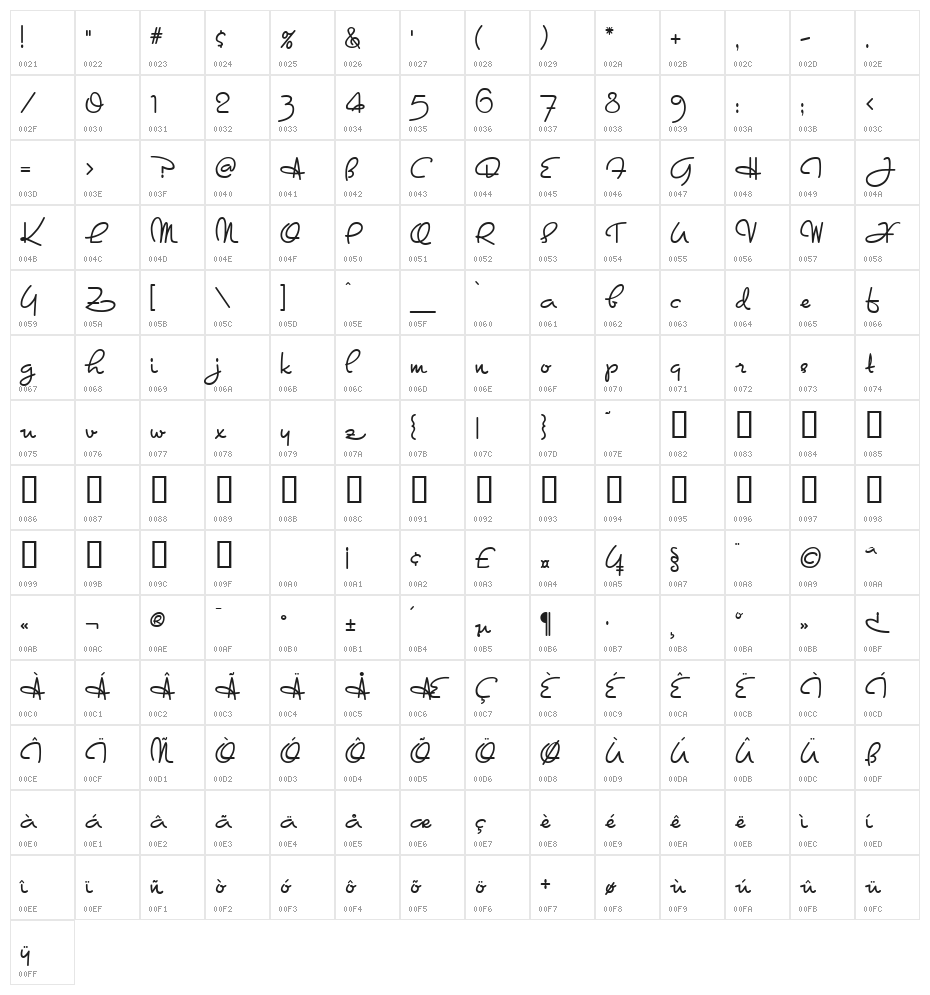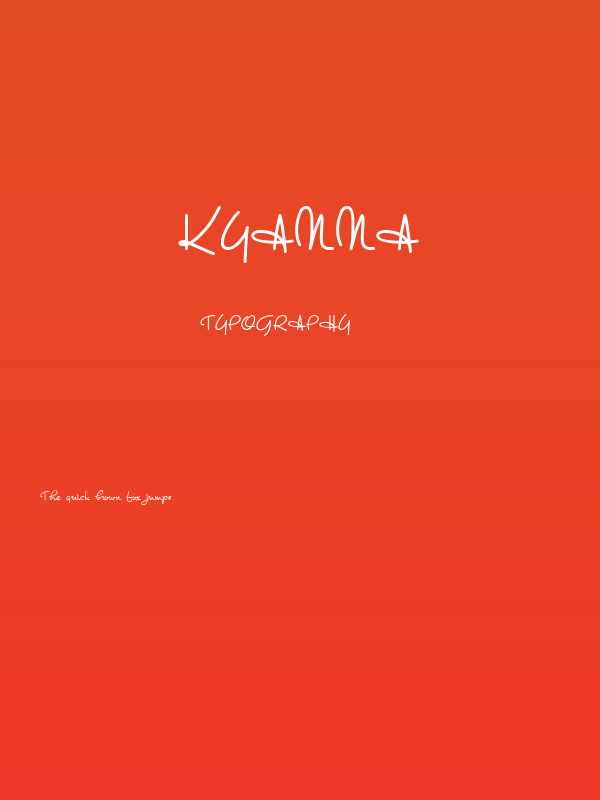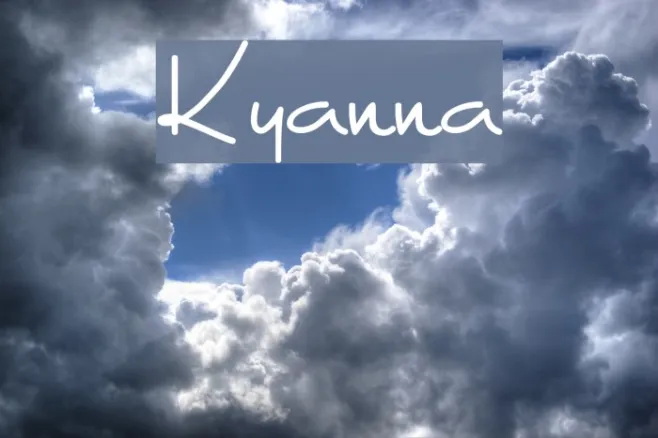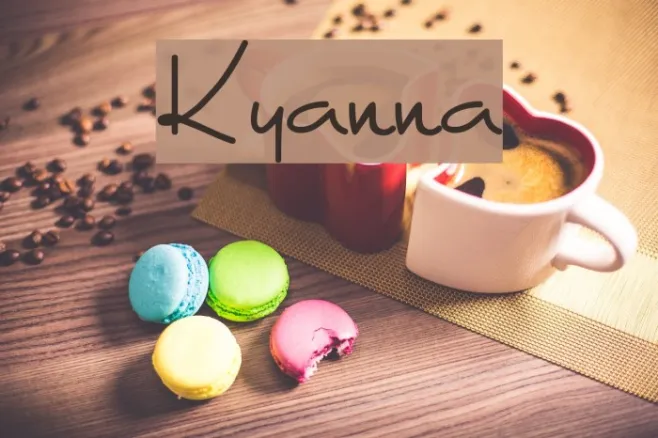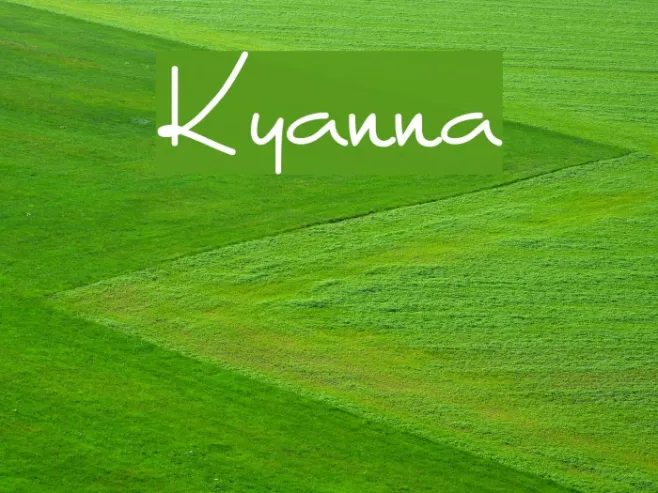
Kyanna Font
Kyanna Description
This font exudes a playful and casual handwritten style, characterized by its fluid and connected strokes. The uppercase letters maintain a consistent height with a slight slant, giving them a dynamic appearance. The lowercase letters are more rounded and feature a smooth flow, enhancing the font's legibility and charm. Numbers are well-proportioned, matching the overall style of the alphabet. Special characters are creatively integrated, maintaining the font's cohesive look. This font is ideal for projects that require a personal touch or an informal tone, such as greeting cards, invitations, or creative branding.